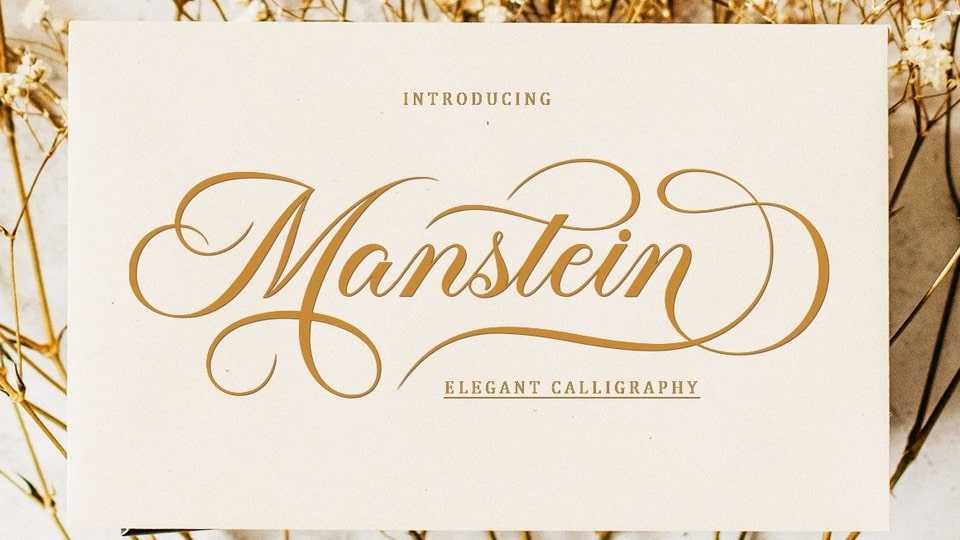
Download Manstein Script font, one of the elegant script typeface that comes with a very beautiful character change, a kind of classic copper decorative script with a modern touch, designed with high detail to present an elegant style.
Designer: Master Type